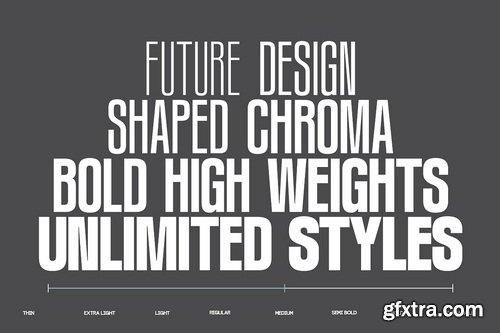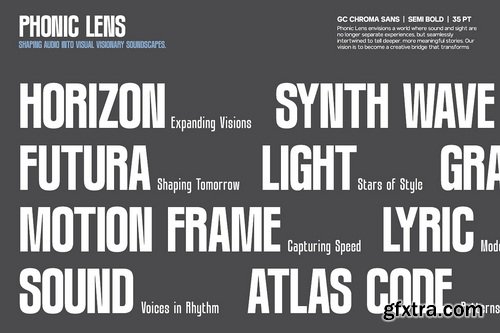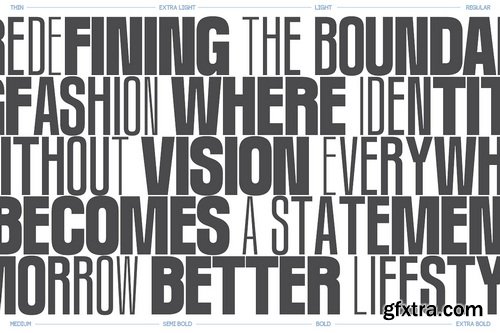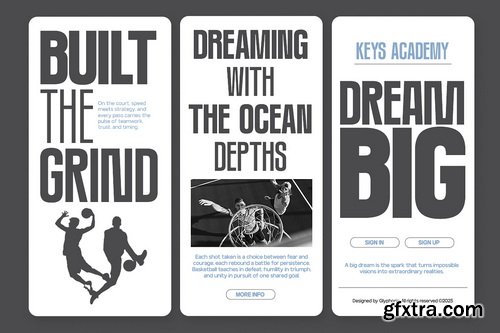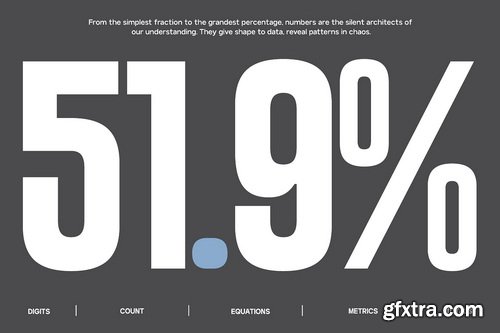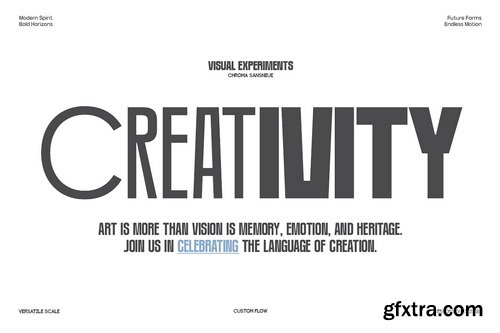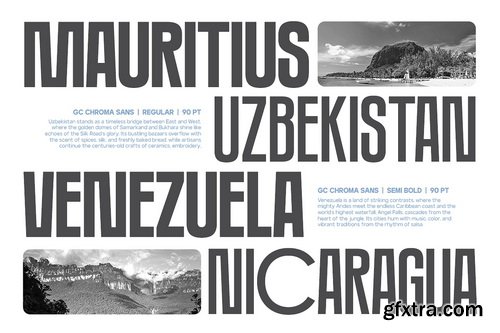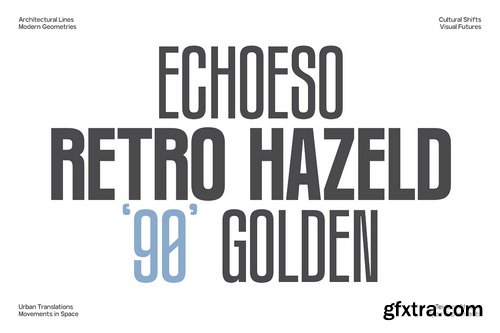
- GC Chroma — Condensed Sans Family is a modern condensed typeface that combines precision, power, and versatility. Designed with sleek proportions and geometric clarity, it delivers a strong visual impact while maintaining refined readability across any medium. Crafted for designers who value efficiency and style, GC Chroma is ideal for editorial layouts, branding systems, posters, and digital interfaces. Its condensed structure allows for bold headlines and compact compositions without losing elegance or legibility.